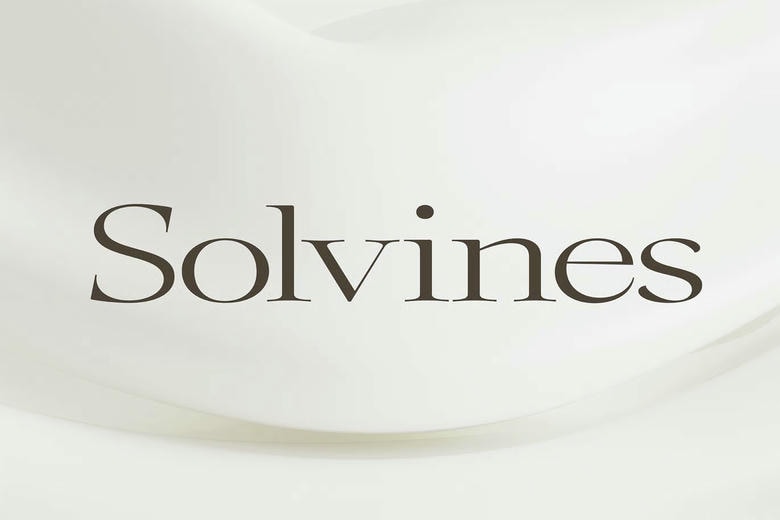
Solvines Font
Solvines is a classy serif font and it makes your text look beautiful. Its smooth lines and advanced curves create an opportunity to add a hint of sophistication to any proje ct. Ideal in the fashion magazines, high-end invitations, or branding, it creates a sense of confidence and sophistication.
You want to create a classic appearance or give your design an up-to-date appeal, this font will surely add a touch of class to whatever you create with its subtle refinement.
Solvines Serif Font